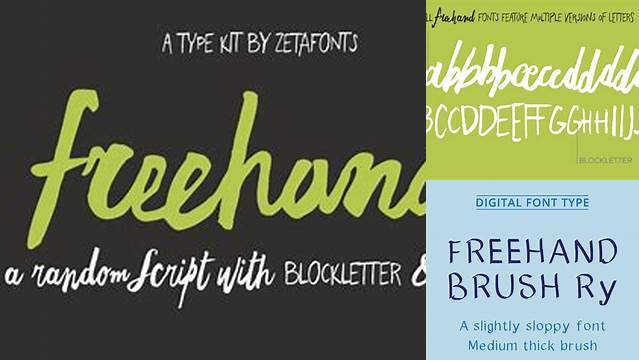
Download Freehand Brush Fonts: Your Ultimate Guide
Hey everyone! 👋 Today, we're diving headfirst into the awesome world of freehand brush fonts! If you're a designer, a creative enthusiast, or just someone who loves cool fonts, you're in the right place. We're going to explore everything about these amazing fonts, from where to find them for free download to how to use them to spice up your projects. Let's get started!
Freehand Brush Font Mania: Why They're So Hot Right Now 🔥
So, what's the deal with freehand brush fonts? Why are they so popular? Well, guys, it's all about that personal touch. These fonts mimic the look of real brushstrokes, giving your designs a handcrafted, artistic feel. They're perfect for projects where you want to add a bit of personality and a raw, authentic vibe. Think invitations, logos, social media graphics, and anything else that could use a dose of that human touch. The beauty of a freehand brush font lies in its imperfections – the slight variations, the uneven strokes – all of these elements contribute to its unique charm. It's like having a piece of art that you can use as text! This makes them ideal for conveying a sense of creativity, spontaneity, and individuality. They are also incredibly versatile. You can use them in a wide variety of projects, from creating stunning headlines and titles to adding a touch of elegance to your branding materials. Moreover, with the rise of digital art and design, freehand brush fonts have become an essential tool for designers looking to create a more organic, handmade aesthetic. Many designers are choosing these fonts because they provide a break from the clean, polished look that has dominated design for a while, and offer a more expressive and tactile experience. The demand for these fonts has exploded, with countless options available, and you'll find that these fonts are easy to integrate into any design project.
The Allure of the Handwritten Look
One of the primary reasons for the popularity of freehand brush fonts is their ability to simulate the beauty and personality of handwriting. In an era dominated by digital perfection, these fonts offer a refreshing return to a more human touch. They evoke a sense of warmth, authenticity, and a personal connection that typed fonts often lack. For example, when you're designing an invitation for a wedding or a birthday, using a freehand brush font can make it feel more special and tailored. The casual, slightly imperfect strokes mimic the look of handwritten calligraphy, conveying a feeling of care and personalization that can't be replicated by a standard font. The best thing is that this design is accessible to everyone, it is not necessary for you to have extraordinary skills, you can simply choose a freehand brush font, and make all your designs come alive. The effect of handwritten fonts is even more pronounced in branding. Imagine a brand logo that uses a freehand brush font. It immediately communicates the brand's values: creativity, approachability, and a focus on quality. This is an attractive aspect for companies that seek to differentiate themselves from the competition. A brand that uses this kind of font tells a story, and offers an emotional experience to the public. It's a subtle but powerful way to connect with your audience on a deeper level, building trust and loyalty.
Versatility Across Design Projects
Another key reason for the popularity of freehand brush fonts is their incredible versatility. These fonts are not limited to a specific design niche, instead, they can be incorporated into a wide range of projects, from print to digital. They are particularly effective in projects that aim to communicate a sense of creativity, art, and personal expression. For example, they are great for: Logos: A freehand brush font can give your brand logo a distinctive and memorable appearance. It adds a human touch that makes your brand more approachable and likable. Social Media Graphics: Using a brush font for your social media posts can make them stand out and grab attention. The organic style is perfect for generating engagement and making your content more shareable. Invitations: Whether for weddings, birthdays, or other events, a freehand brush font adds a touch of elegance and personal flair that can make the invitations feel more special and unique. Posters and Flyers: They are ideal for creating eye-catching posters and flyers that convey a sense of creativity and artistic talent. Web Design: Using brush fonts for headings and key elements can make your website more attractive and user-friendly. The font can also improve user experience by creating a more organic and personalized design.
Checking for Quality and Compatibility
Before downloading and installing a freehand brush font, it's essential to ensure that the font is of good quality and compatible with your design software. You don't want to end up with a font that looks pixelated, has issues with kerning, or doesn't work on your favorite platforms. Here are a few tips to help you choose the best quality fonts: Review the Font Preview: Most websites will provide a preview of the font in different sizes and with different text examples. This allows you to assess the font's appearance and see if it meets your design requirements. Check the Font's Character Set: Ensure the font includes all the characters you need, like uppercase and lowercase letters, numbers, punctuation marks, and any special characters. Some freehand brush fonts might only include a limited character set, so check this before you download them. Test the Font in Your Software: Always test the font in your preferred design software (Photoshop, Illustrator, Canva, etc.) to ensure it's compatible and works as expected. Try typing different text, and check how the font looks in different sizes and styles. This can help you verify it works the way you want. Consider File Formats: Most fonts are available in either .OTF (OpenType) or .TTF (TrueType) formats. Both formats are widely compatible, but .OTF is generally preferred due to its advanced features, like ligatures and stylistic sets. Read Reviews: See what other users have to say about the font. User reviews can be a great source of information on the font's quality, any issues they've encountered, and whether the font is suitable for your needs. Doing these basic checks can save you time and frustration, and it will help you select and use freehand brush fonts that will make your projects amazing.
Cool Projects to Unleash Your Freehand Brush Fonts ✨
Ready to put those freehand brush fonts to work? These fonts are incredibly versatile, allowing you to add a personalized touch to many different projects. Here are some cool ideas to get your creative juices flowing!
Logos and Branding
Freehand brush fonts are perfect for creating unique and memorable logos that capture the essence of your brand. The imperfect, handwritten style can evoke a sense of creativity, approachability, and authenticity. In logo design, the use of these fonts immediately communicates your brand's identity. For example, a small business that is focused on artisan products, may want a logo that uses a freehand brush font to add a handmade and unique style to your design. This will make it stand out from the competition and create a strong and personal brand image. Think about how the font style aligns with your brand values. A bold, expressive brush font might be ideal for a creative agency or a coffee shop. A more delicate and refined brush font could suit a beauty salon or a boutique clothing store. The font choice can be an important way to visually represent your brand personality and make an impact. To make the most of your logo design, make sure to consider the spacing between letters (kerning), as this can dramatically affect the overall appearance of the logo. Use a logo design tool to see how the font will look in different contexts. When it comes to branding, consistency is key. Make sure to use your freehand brush font consistently across all of your branding materials, including your website, social media profiles, business cards, and packaging. This helps build brand recognition and reinforce your visual identity.
Social Media Graphics
Social media is a visual world, and using freehand brush fonts can make your posts more engaging and eye-catching. Whether you're creating quotes, announcements, or product promotions, these fonts will add a personal touch that makes your content stand out. They are very useful to convey messages in a more appealing and expressive way. The handwritten style of these fonts can easily capture the attention of your audience, creating a more interactive experience. Consider using the fonts in images or backgrounds to create an even more engaging design. For example, create a quote that uses a freehand brush font set against a beautiful background image, to encourage likes, shares, and comments. Also, use the fonts to create visually appealing headlines for your content. The casual look of these fonts creates a more organic feel, and can make your followers feel a closer connection to the brand. Another advantage of using freehand brush fonts on social media is that it makes it easier to create a coherent brand image. Make sure to consistently use the same font across all of your social media platforms. You should also consider matching the font style with the overall tone of your brand, so that the style of the font complements the message that you want to convey.
Verify the Font File: Make sure you have downloaded the font file correctly and that it is not corrupted. Try downloading it again from the original source. Be sure that the format of the file is compatible with the operating system you are using. Most freehand brush fonts are available in .otf or .ttf format, but your system might not support these files. Be sure to look for the most compatible version. Installation Process: Follow the proper installation procedure for your operating system. Typically, you can install fonts by double-clicking the font file and selecting